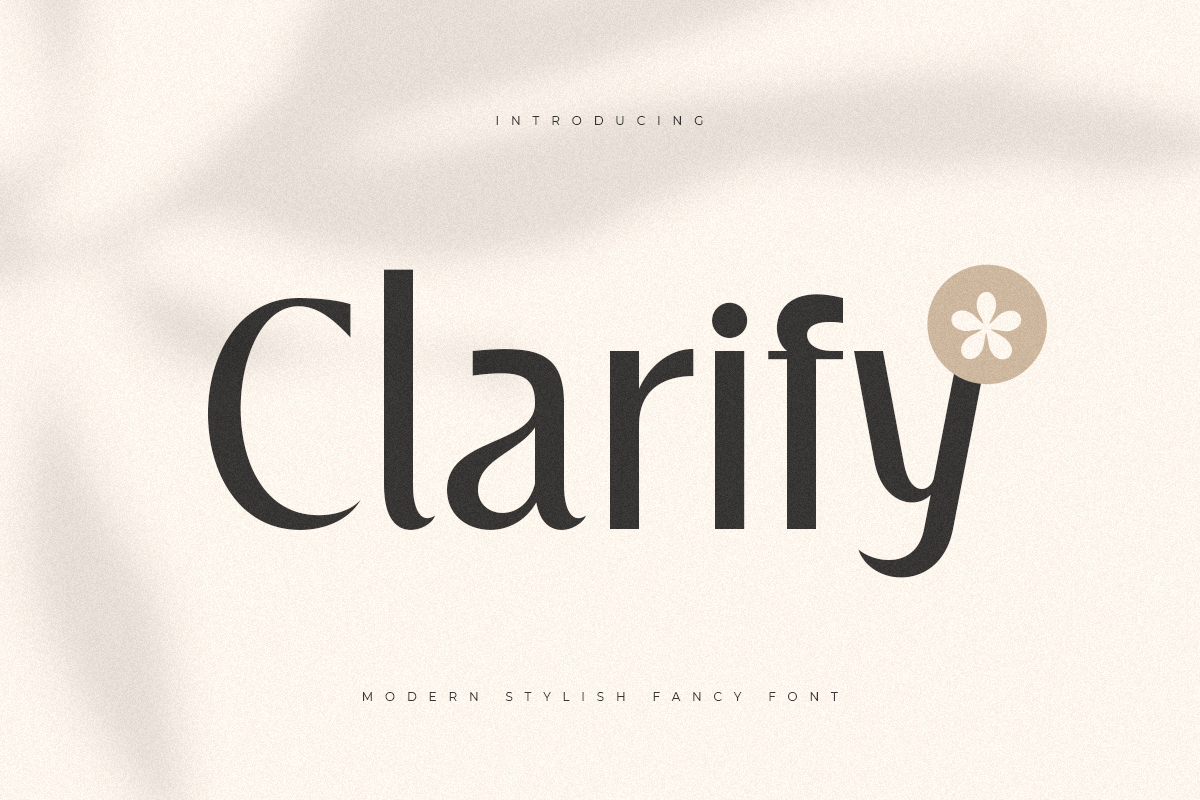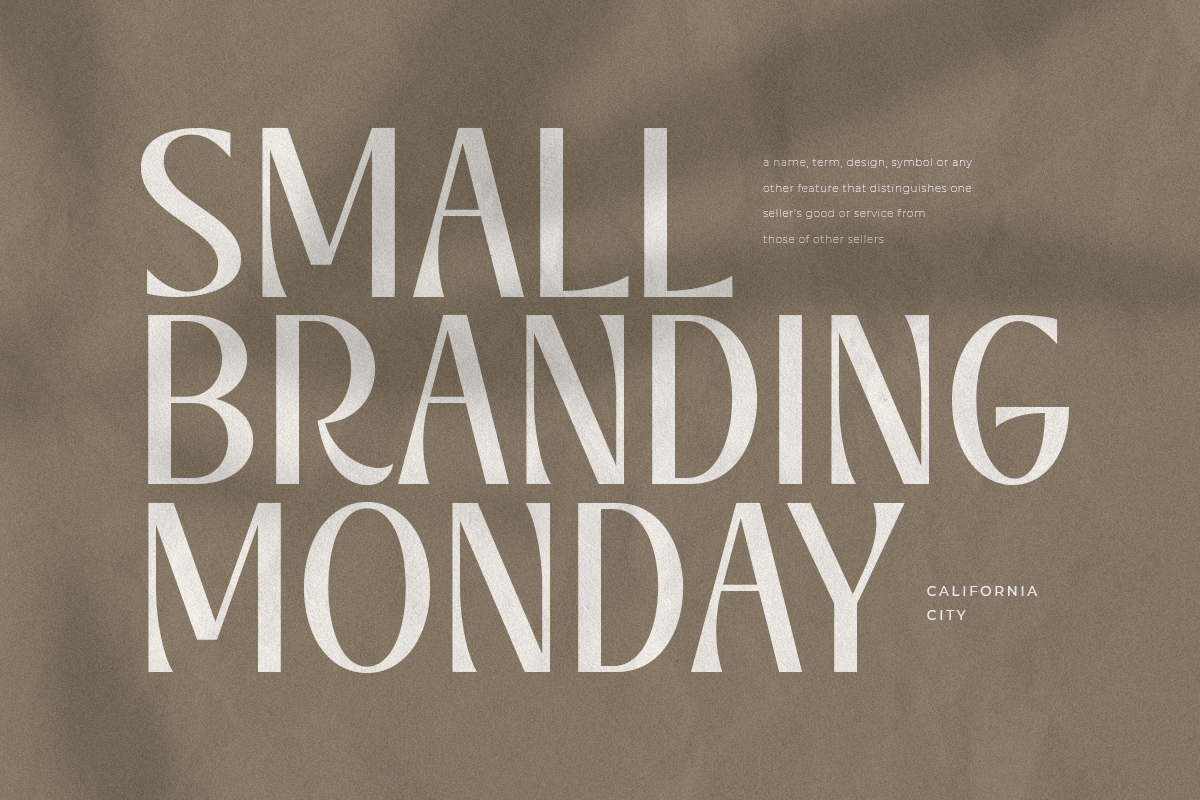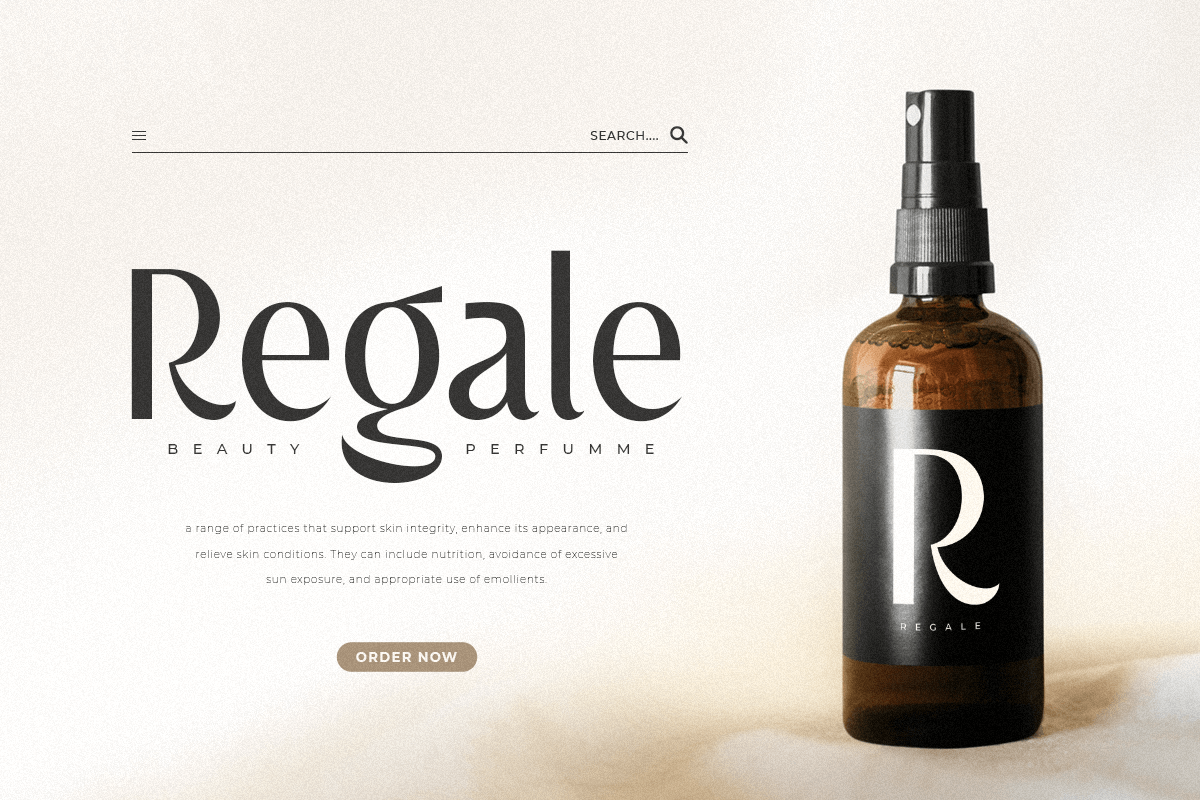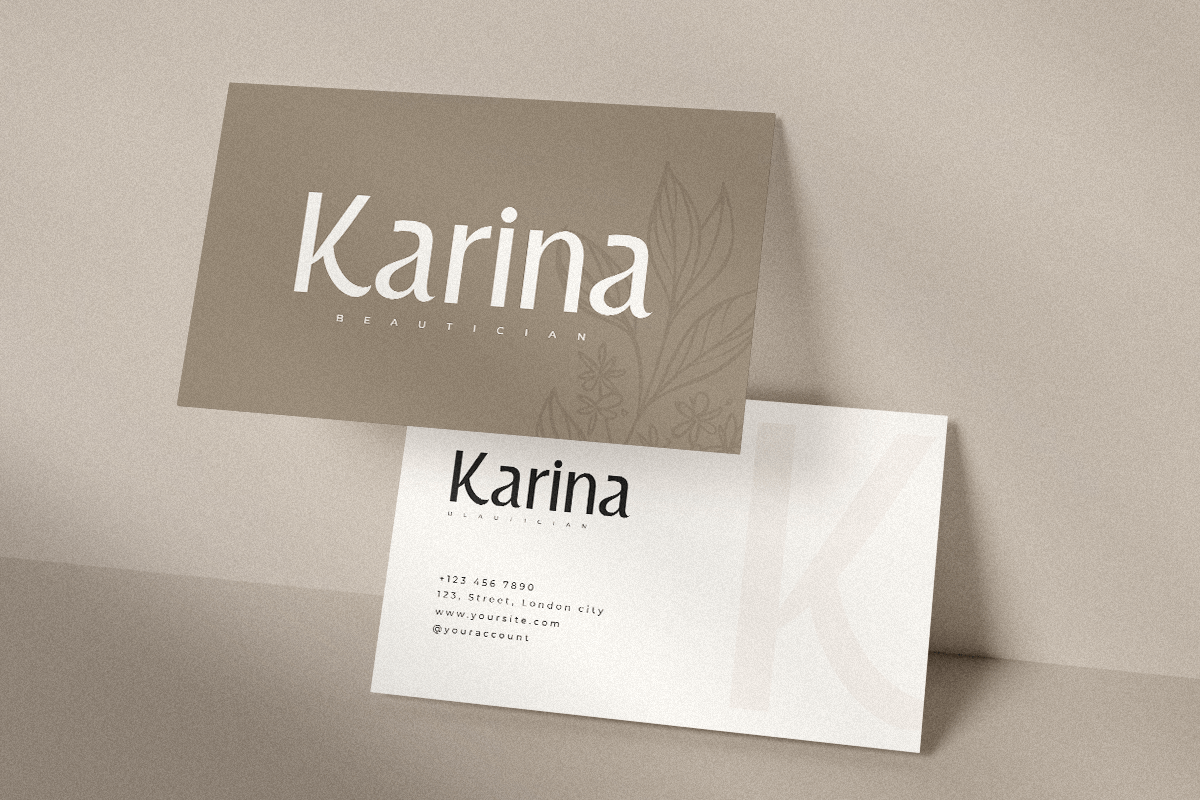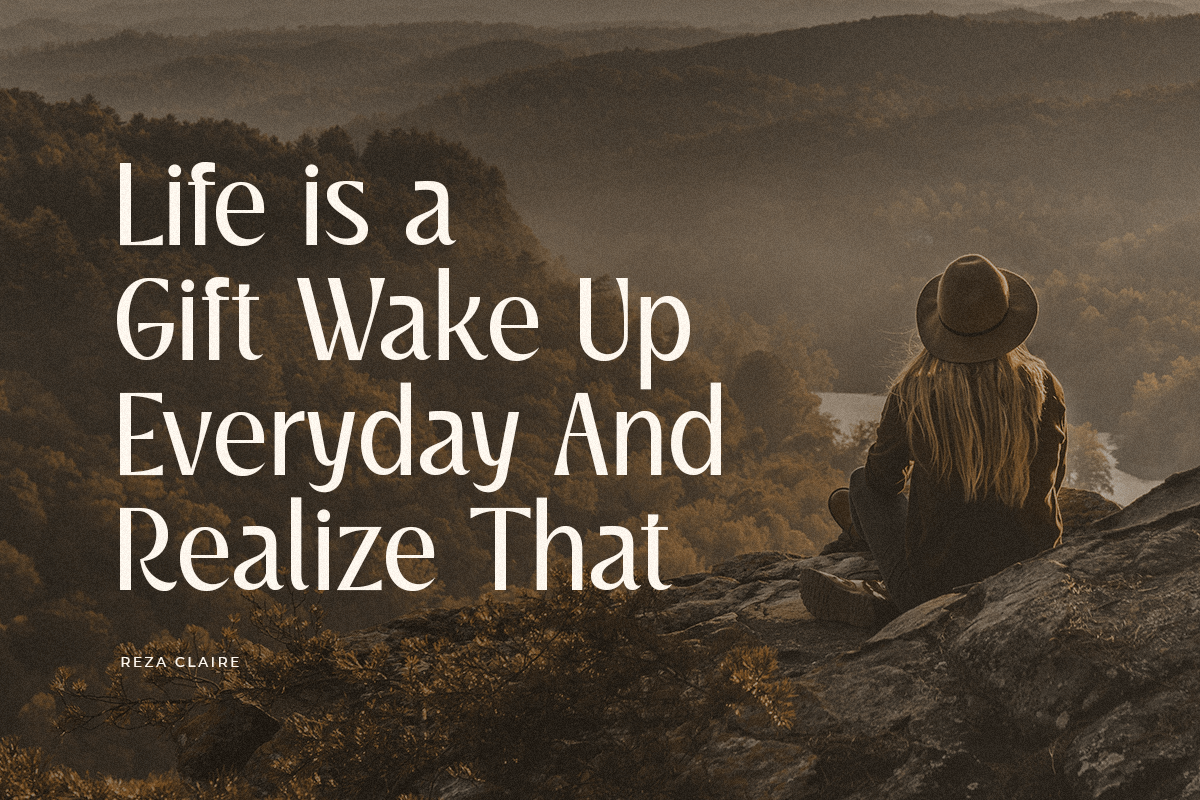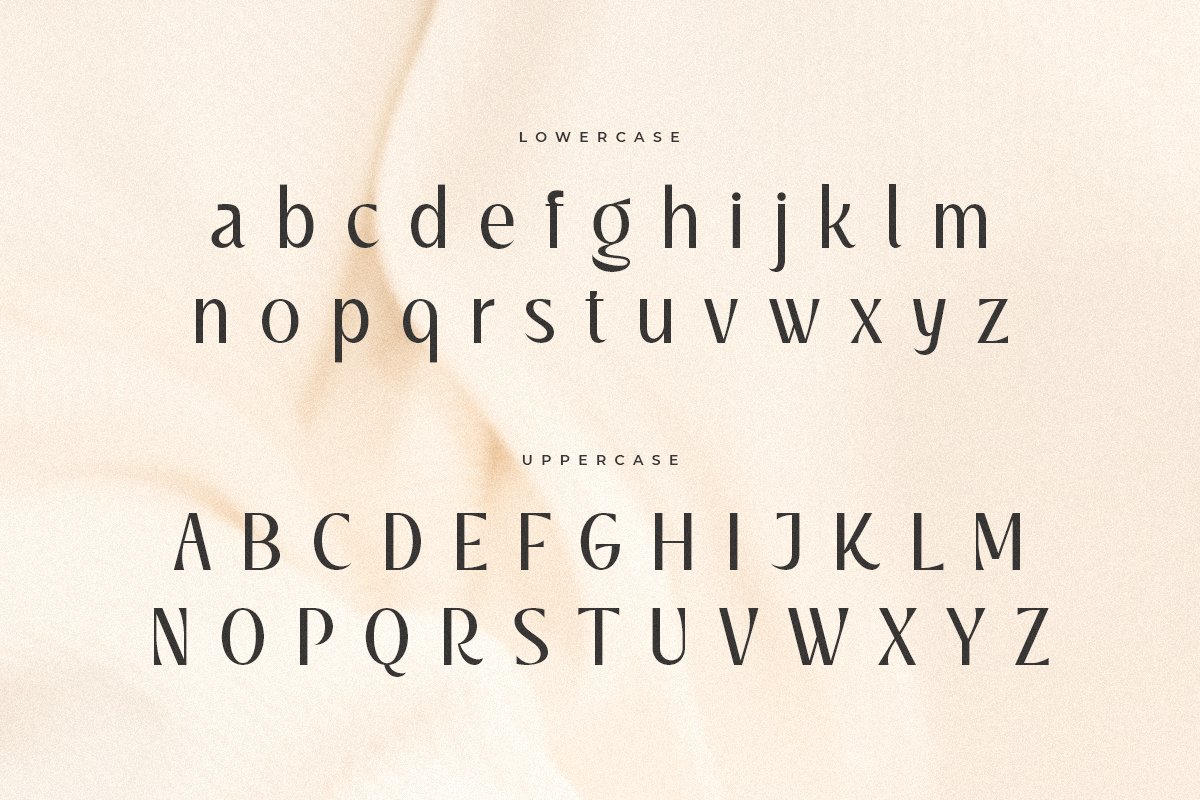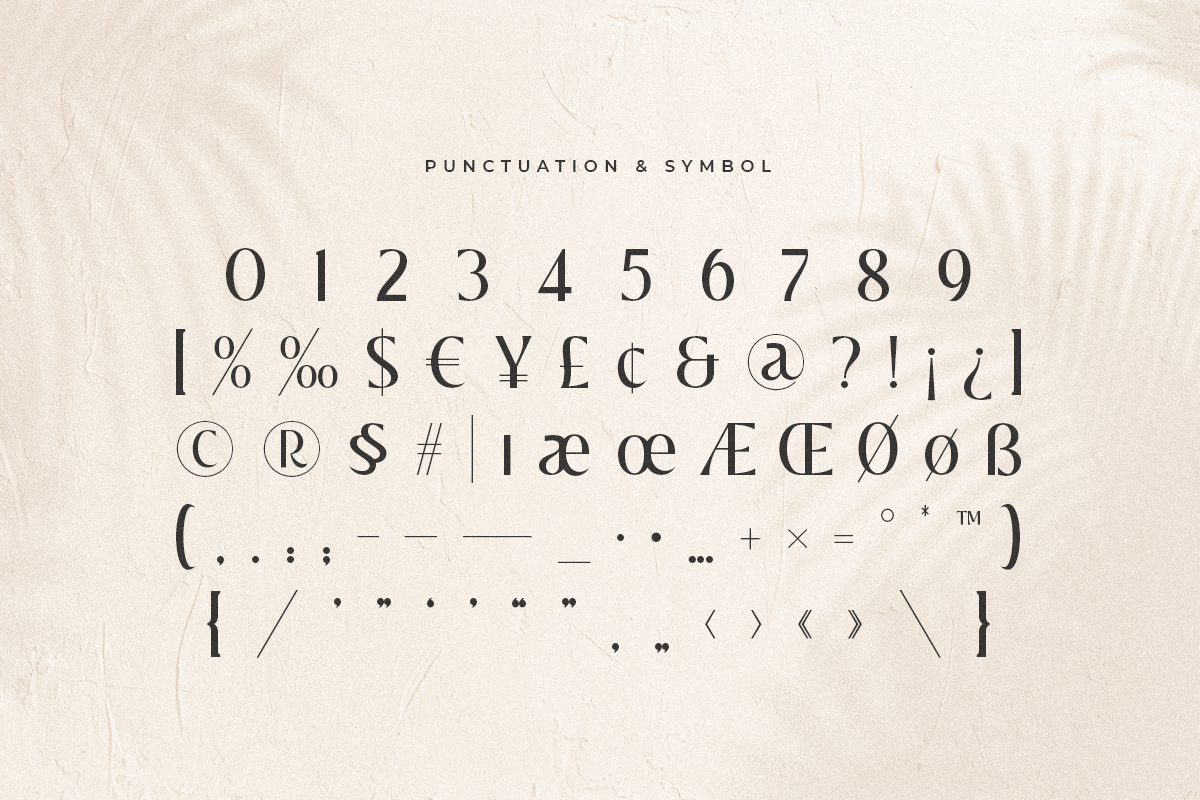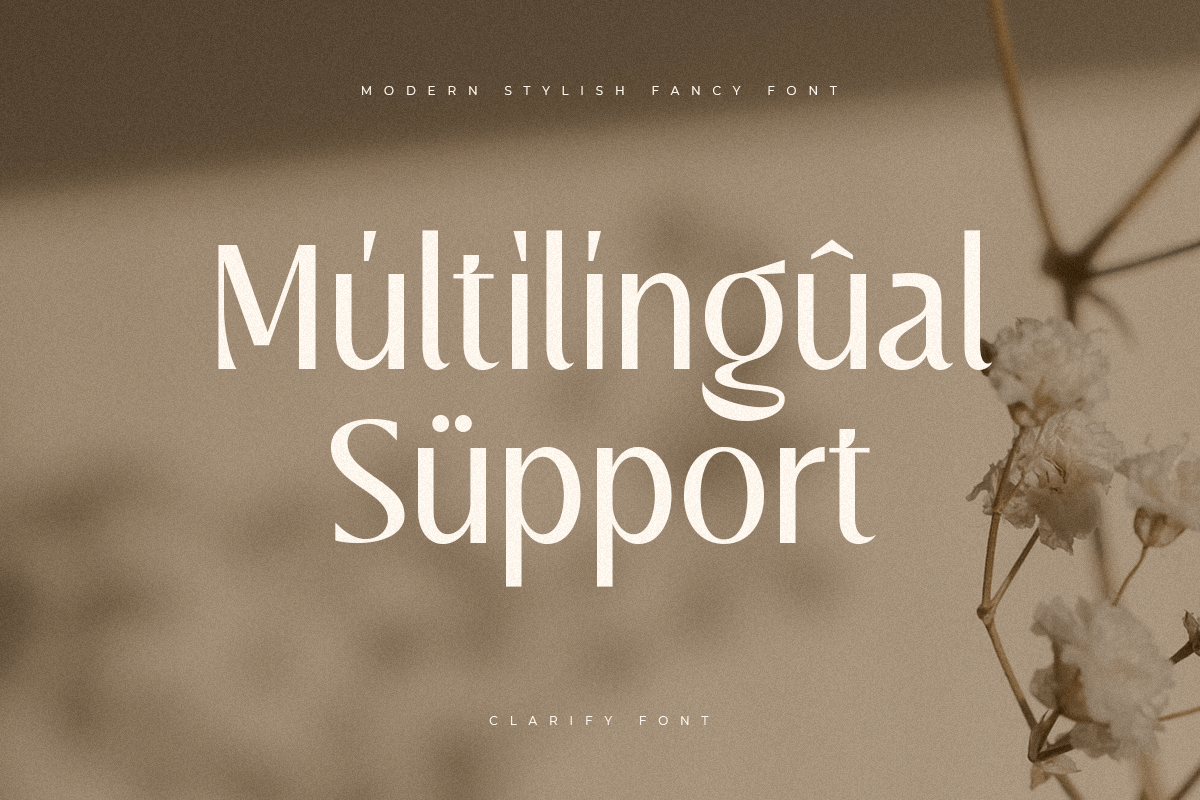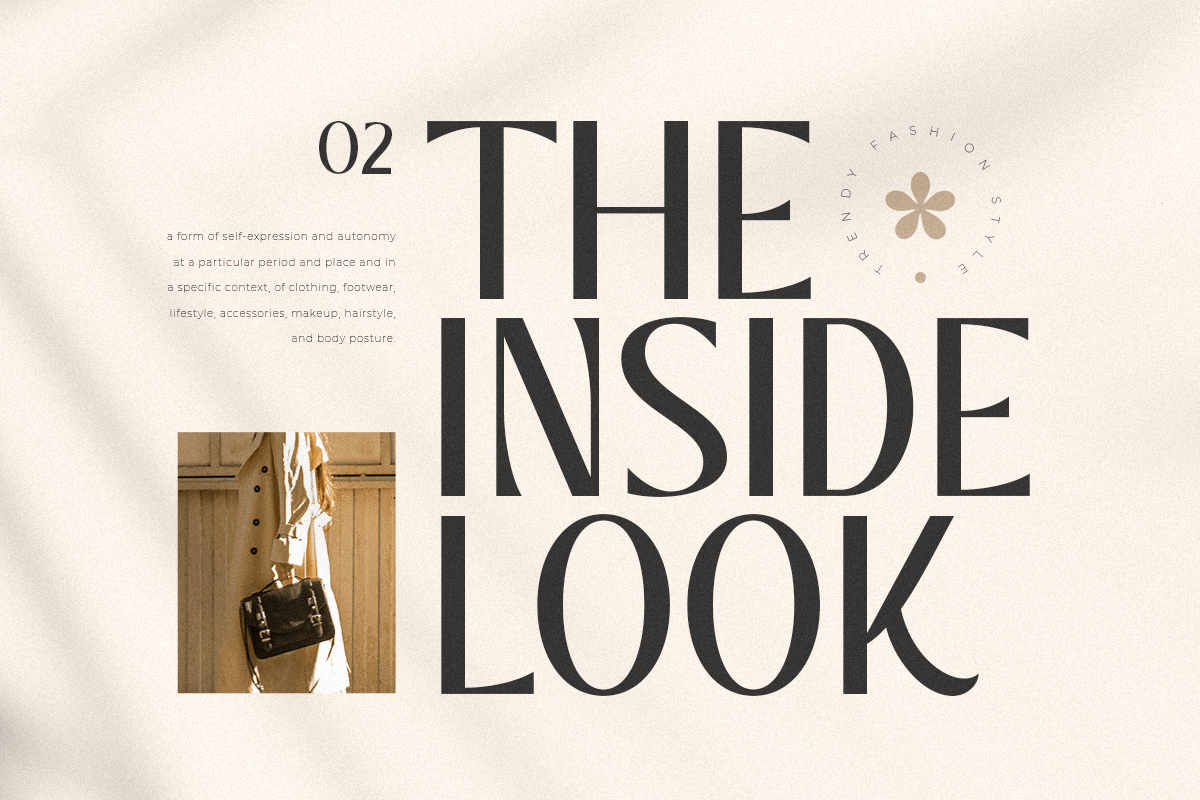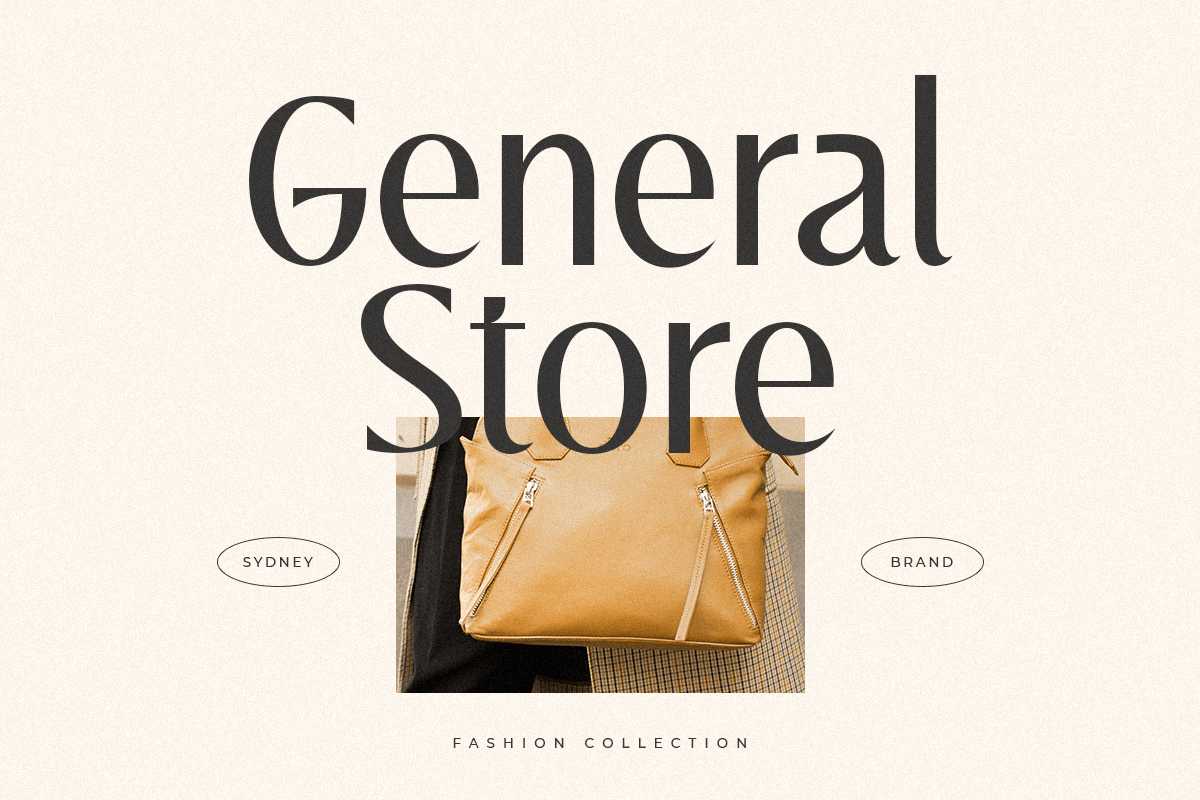
Clarify
-Modern Stylish Fancy Font
Clarify
A Modern Stylish Fancy Luxury font that we created special for elegant branding needs, with unique shape will be ready to add value of your brand. It so nice to leverage designer or product owner that need solutions to make their design look more stylish and modern. And specially for Clarify font, We prepared any characters to help you create unlimited variations for your creative needs.